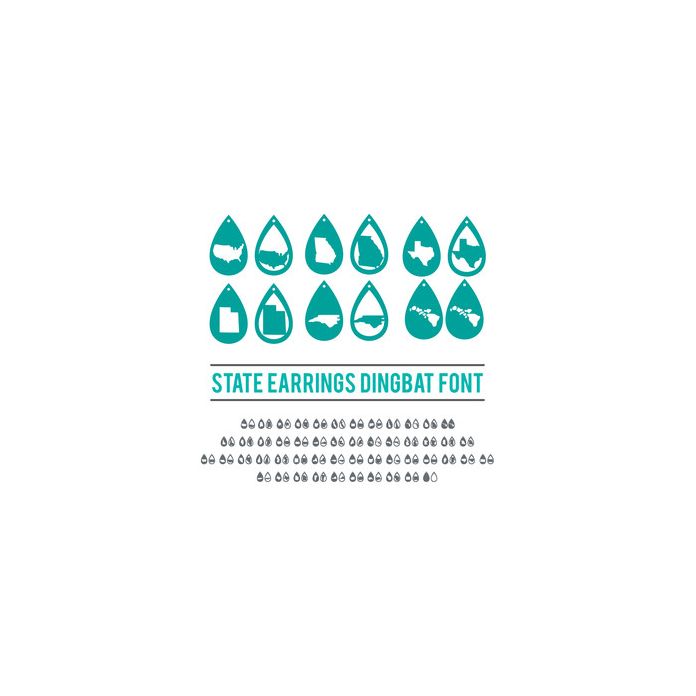
This dingbat font comes in OTF format. Each letter corresponds with a state and offers two earrings designs for that state. Also include is a plain set of earrings.